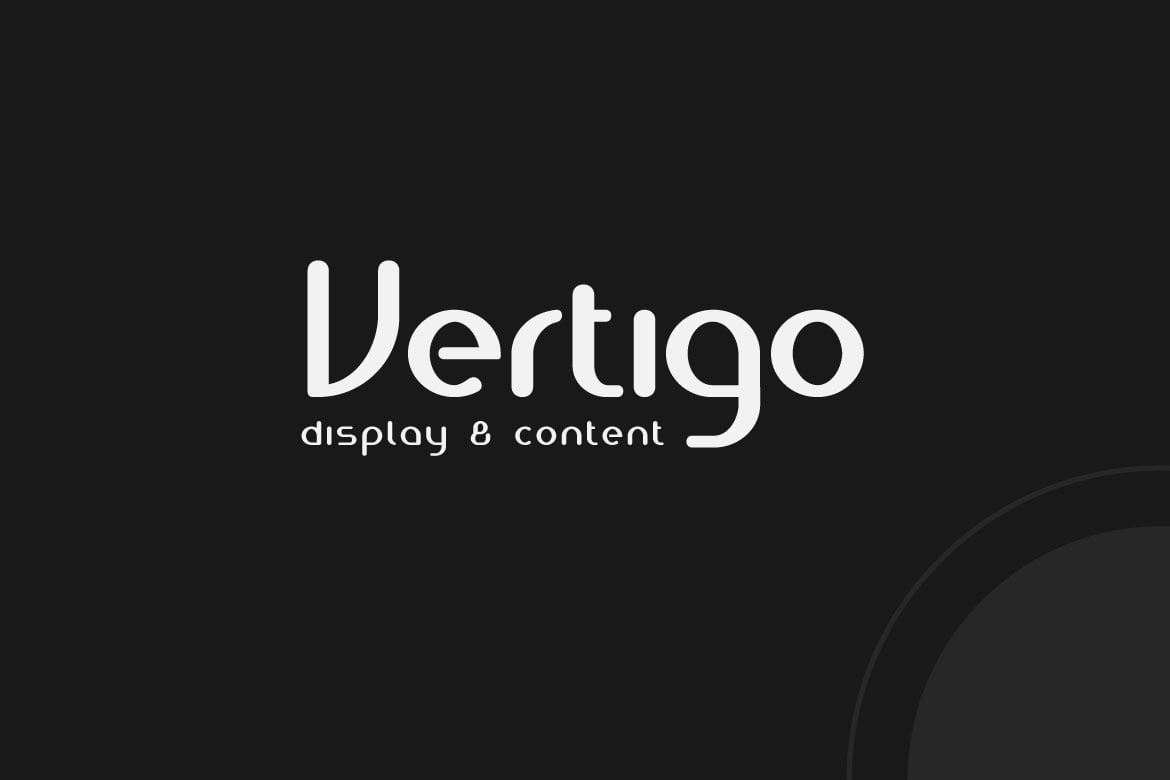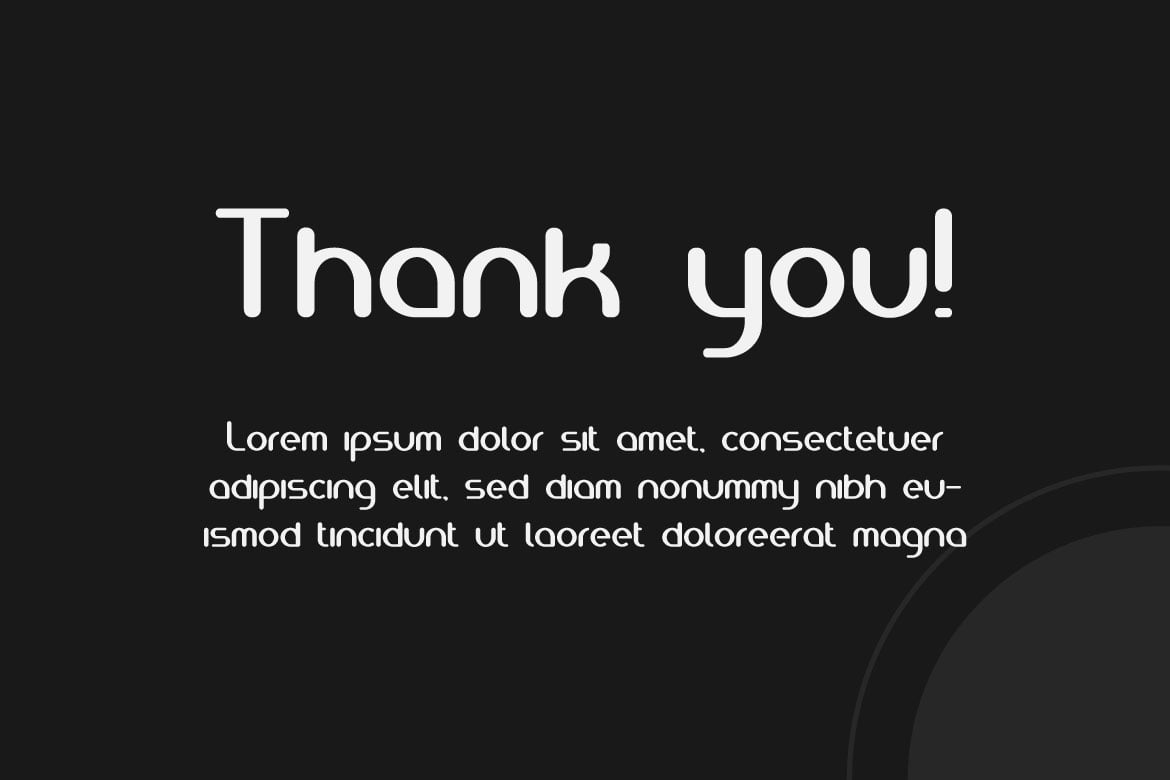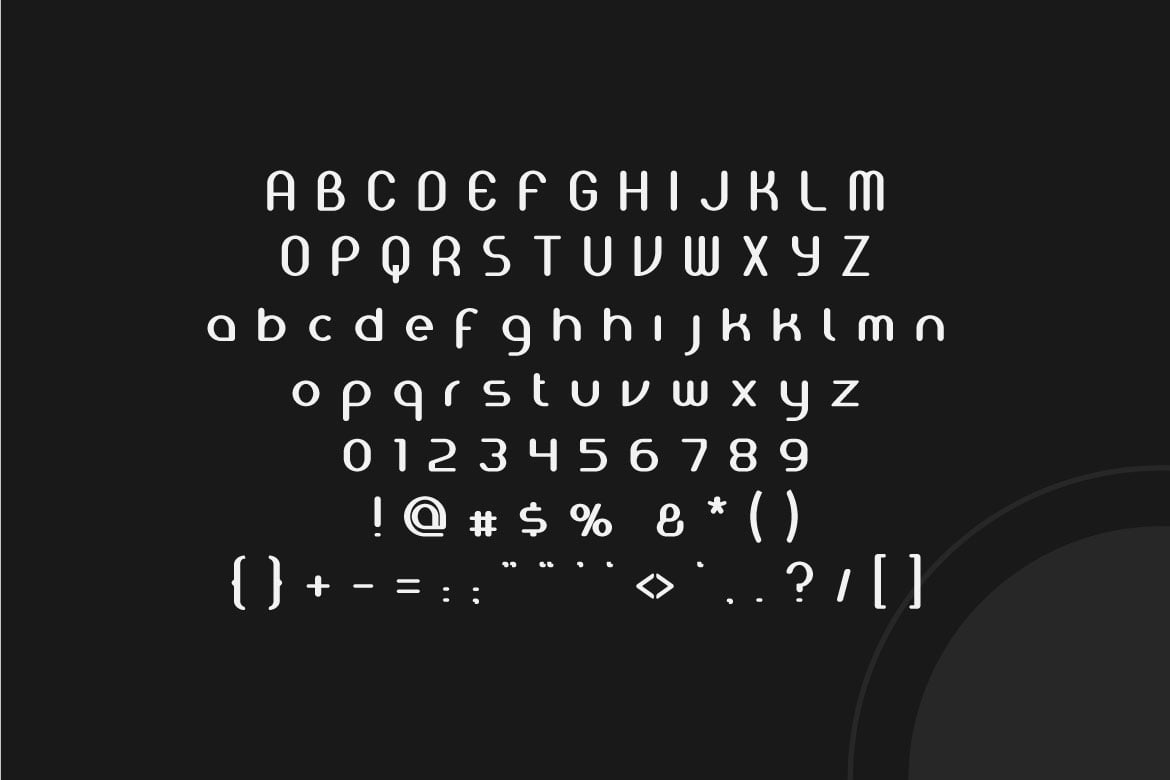
Vertigo – Small Rounded Font
Vertigo is simple font. It brings a professional look with its minimalist style.
It suits perfectly in the funny and formal forms, such as in the title of a magazine, headline, newspaper, office work, poster, book cover, logo, banner, also it can be used in large-scale artwork.